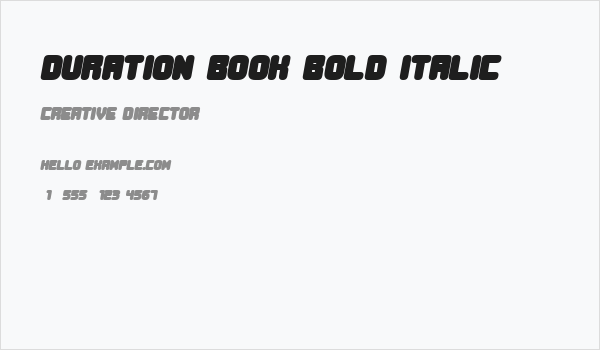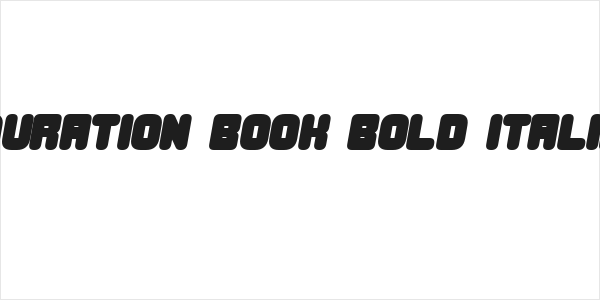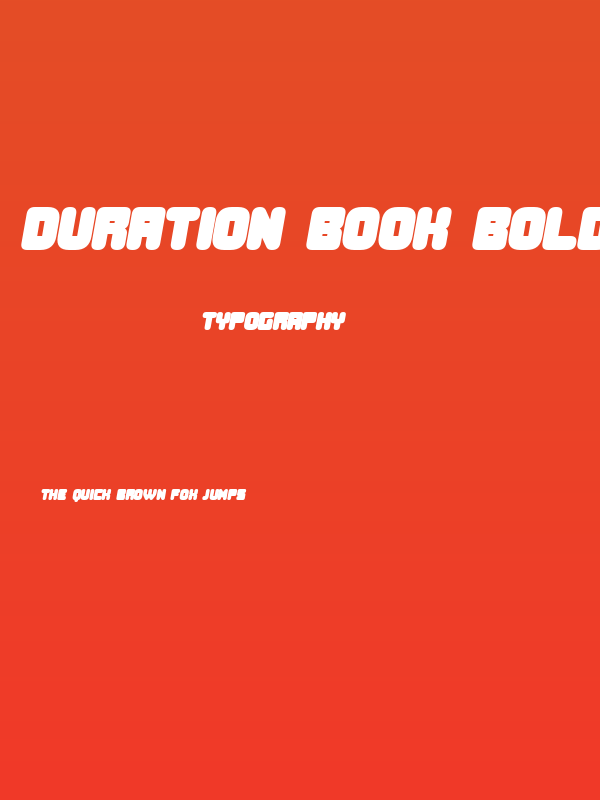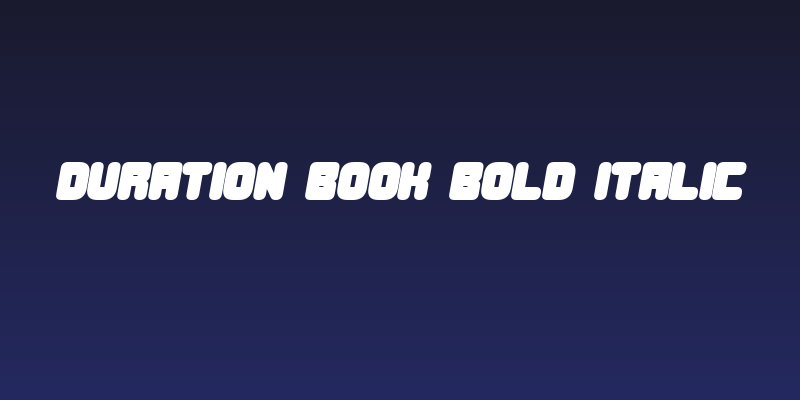
Duration Book Bold Italic Font
Duration Book Bold Italic Description
This font features a bold and rounded style with a strong presence. The characters are uniformly thick, giving a consistent and solid appearance. The rounded edges soften the overall look, making it approachable and friendly. The italic slant adds a dynamic and forward-moving feel, enhancing its modern appeal. The numbers and punctuation maintain the same bold and rounded characteristics, ensuring uniformity across all glyphs. This font is highly legible and stands out due to its substantial weight and smooth curves.
| Proposed Projects | Ideal for branding, advertising, headlines, and packaging design where a bold and approachable look is desired. |